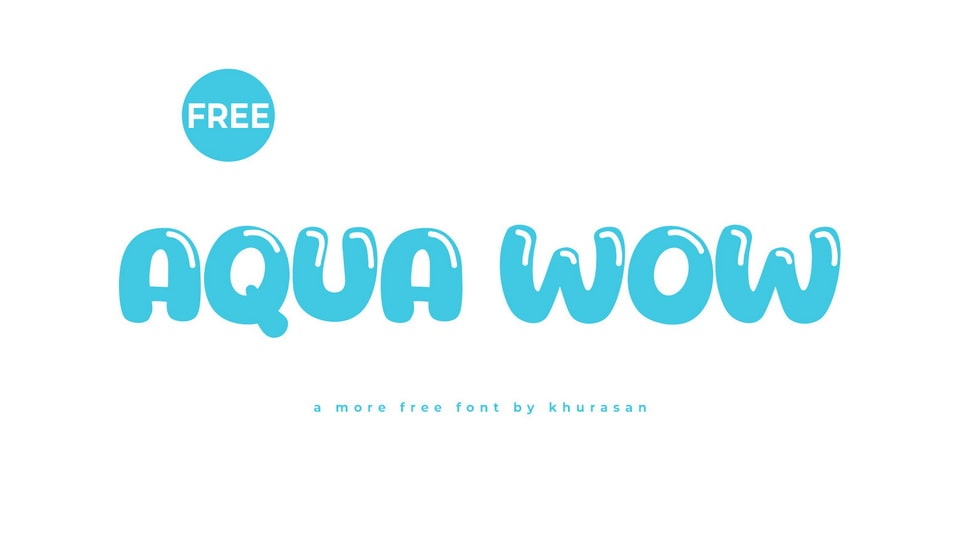
Download Aqua Wow font, a cute and smooth handcrafted cartoon typeface that adds a warm touch to your designs, infusing them with charm and playfulness. Aqua Wow font is lovingly crafted with soft curves and rounded edges, reminiscent of playful bubbles.